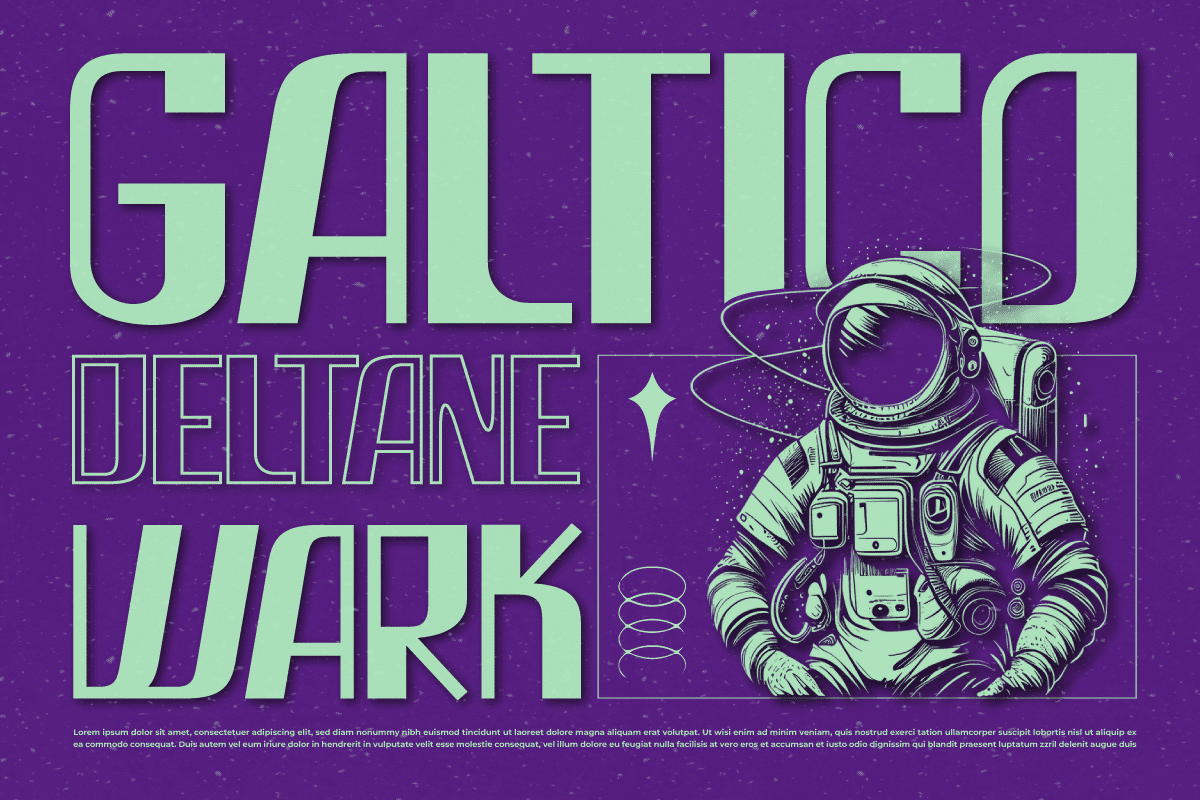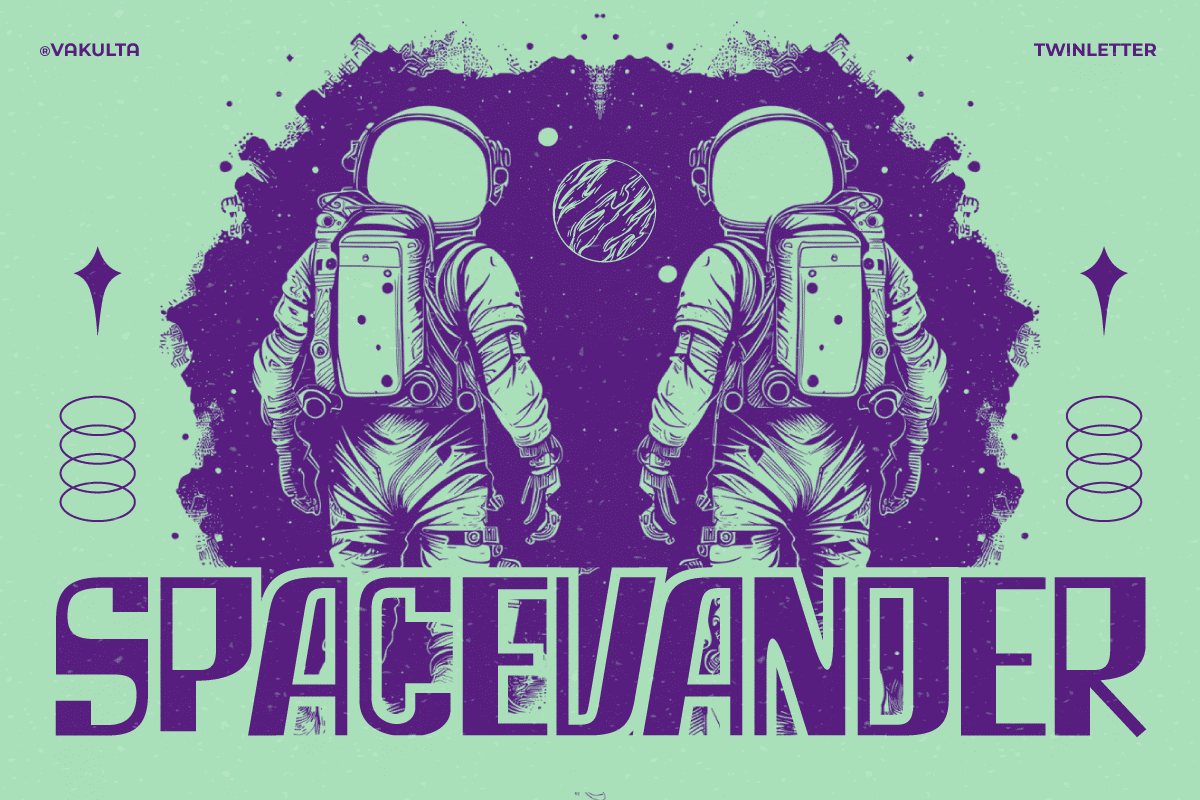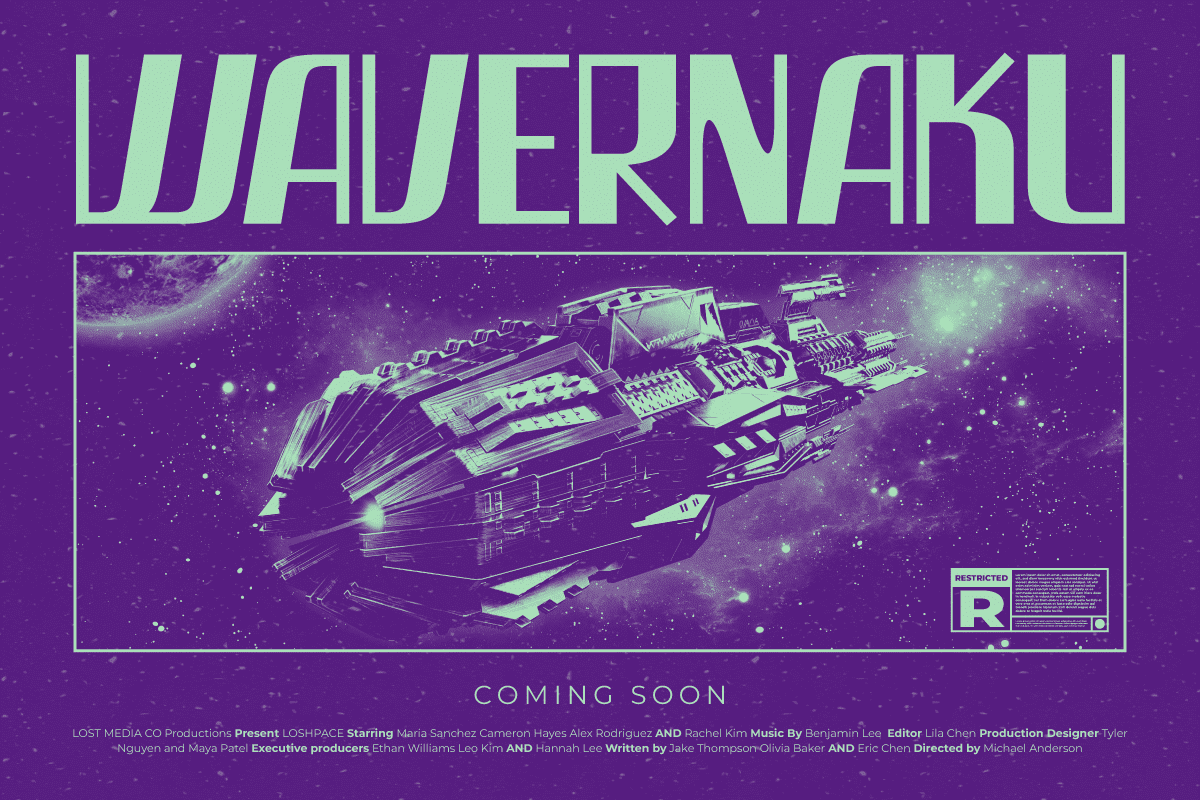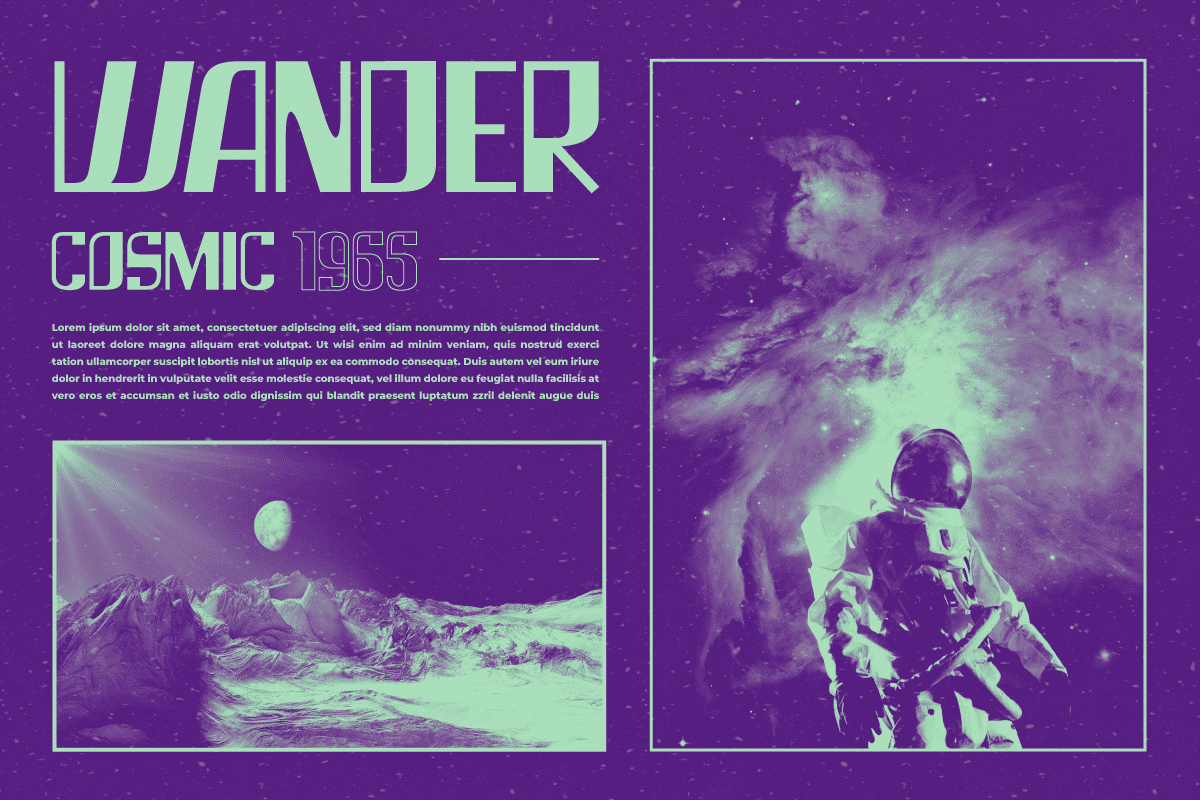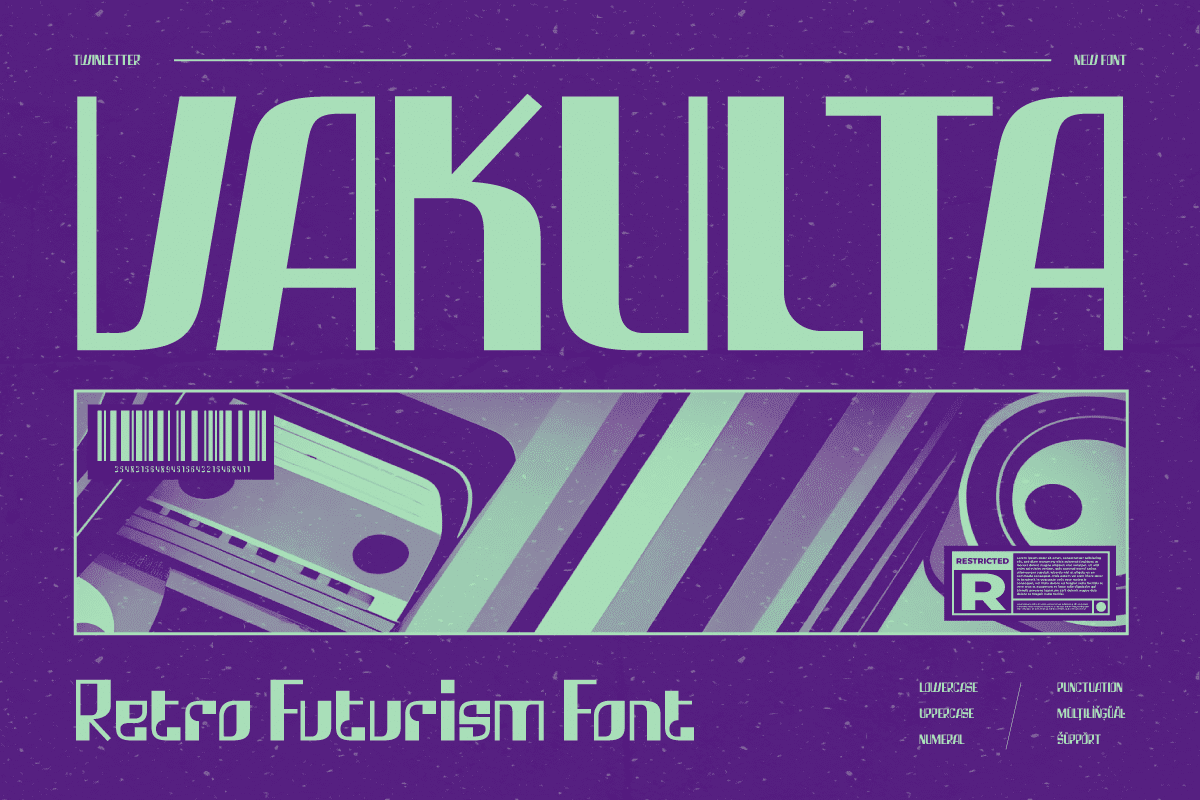
Vakulta Futurism Font
Vakulta Retro Futurism Font that blends vintage aesthetics with futuristic vibes. Ideal for sci-fi posters, retro-themed branding, video game titles, and more, Vakulta features sleek, angular letterforms that evoke the classic look of 80s sci-fi and cyberpunk. Each character is designed to transport your audience to a world where retro meets the future, creating a unique and captivating visual